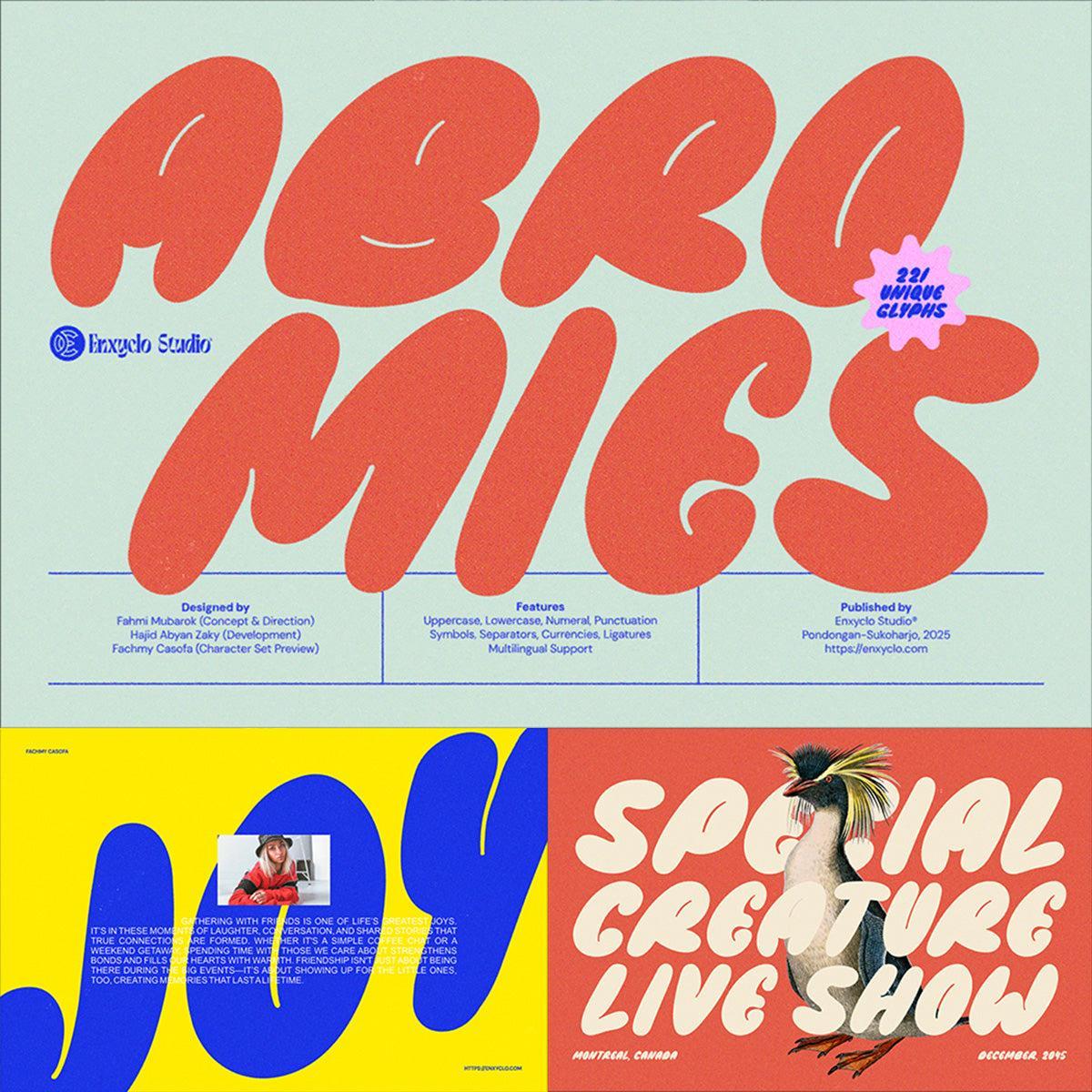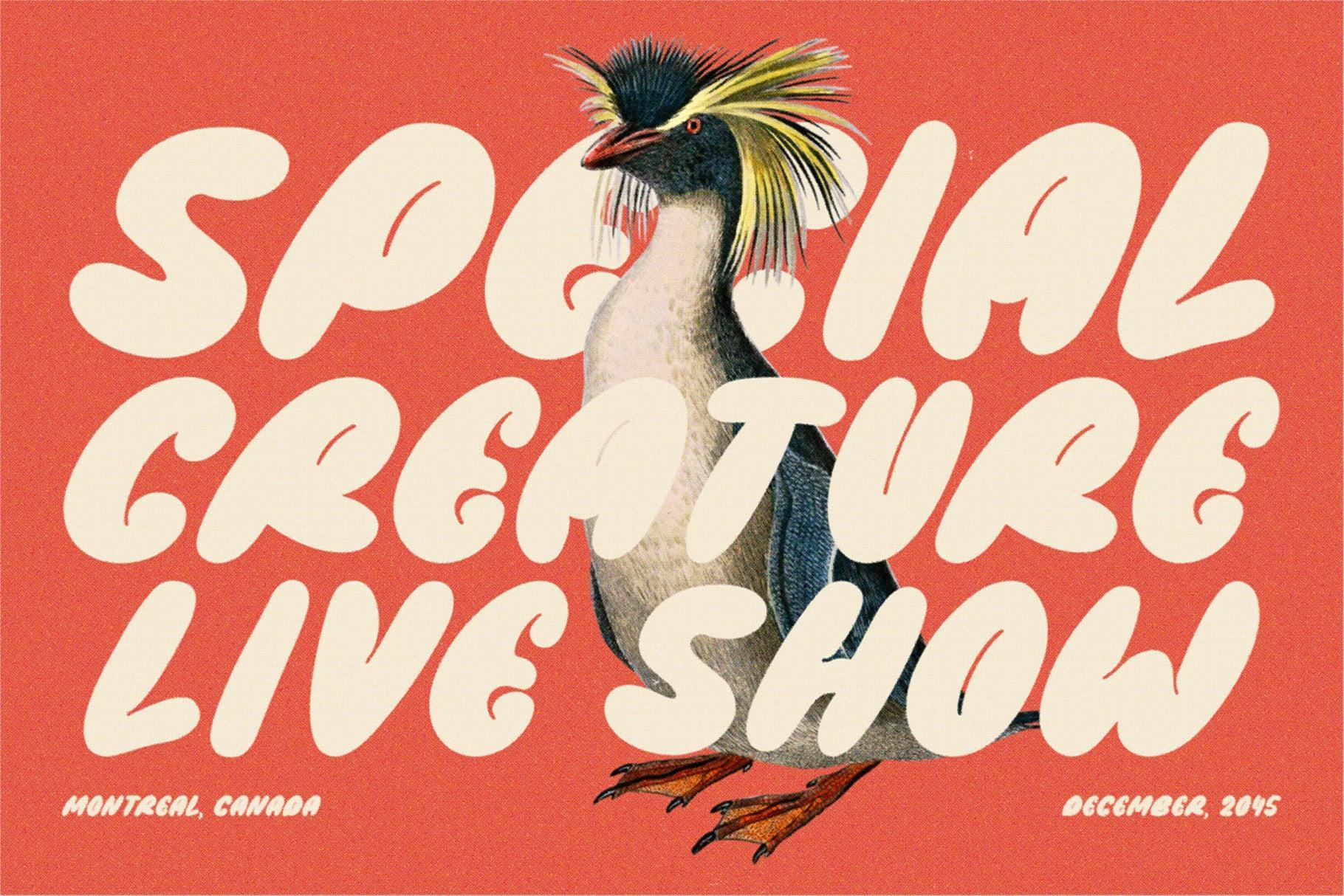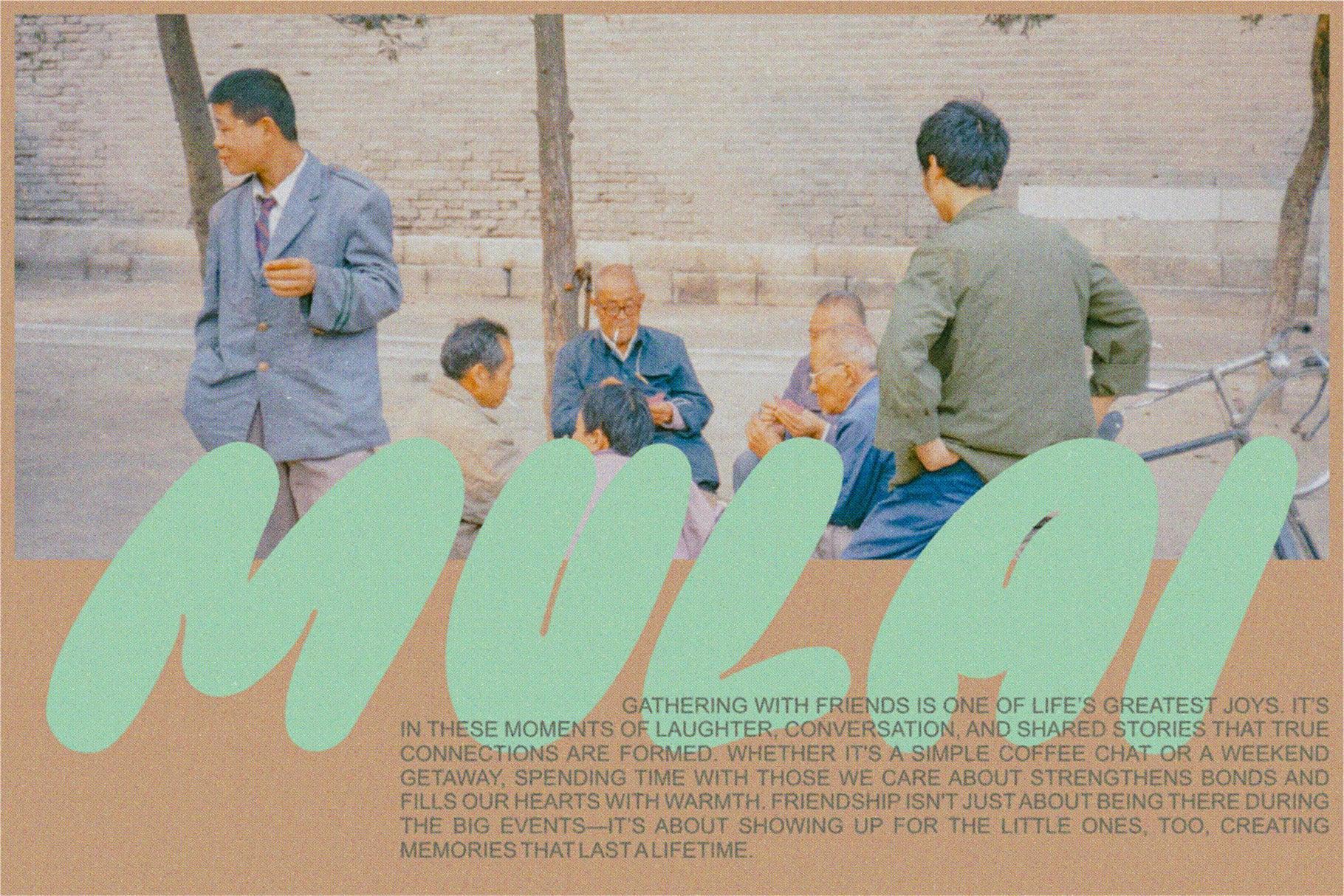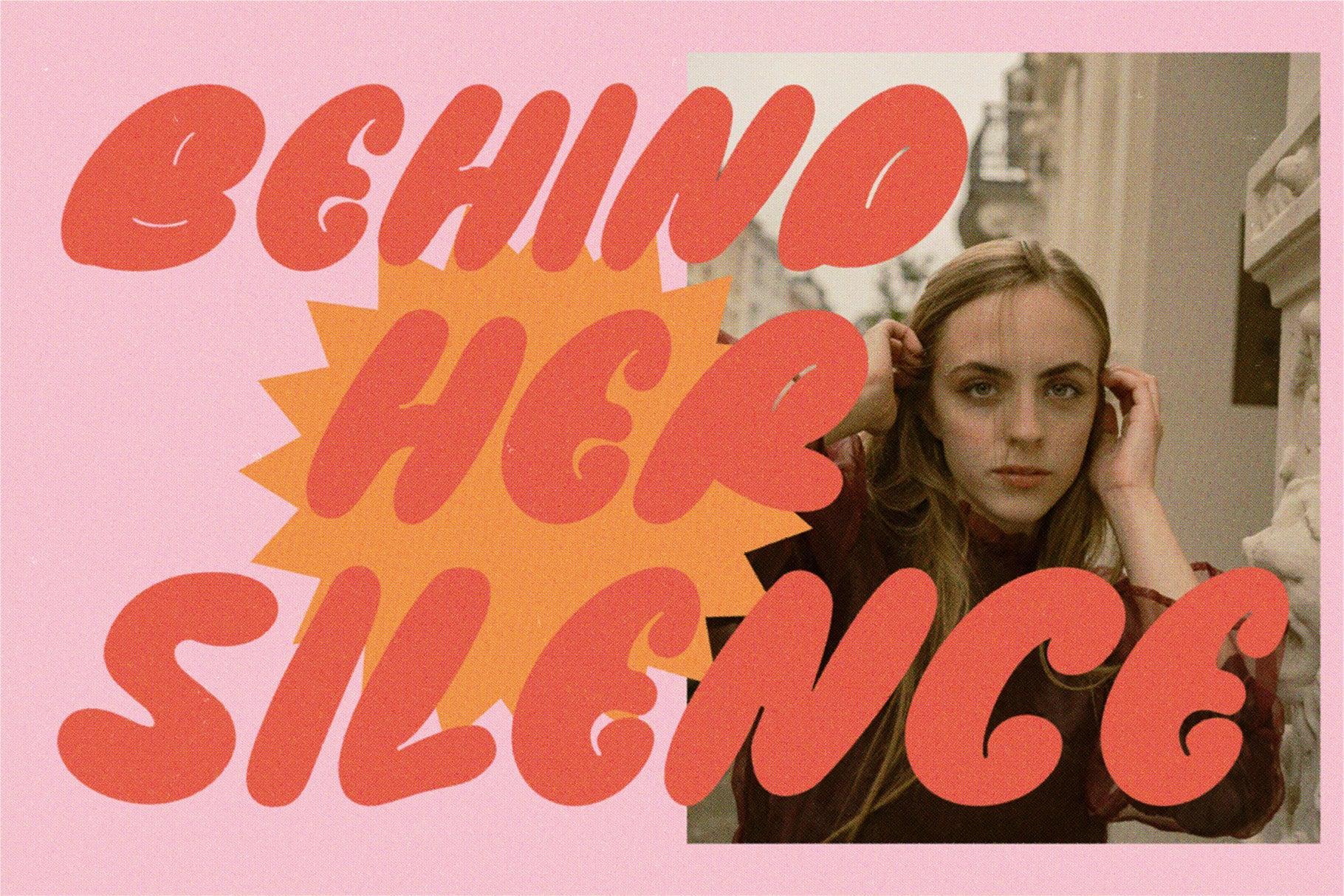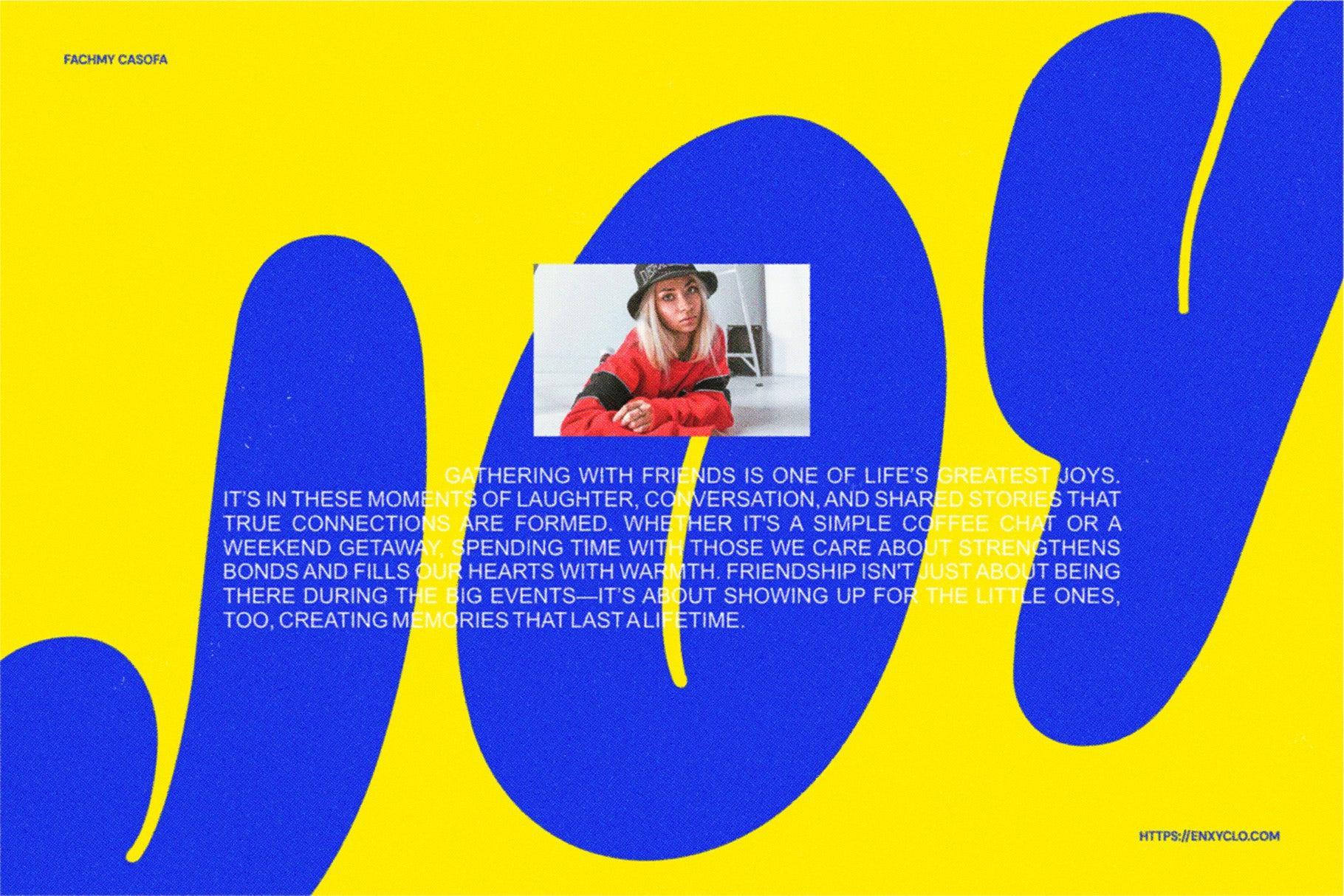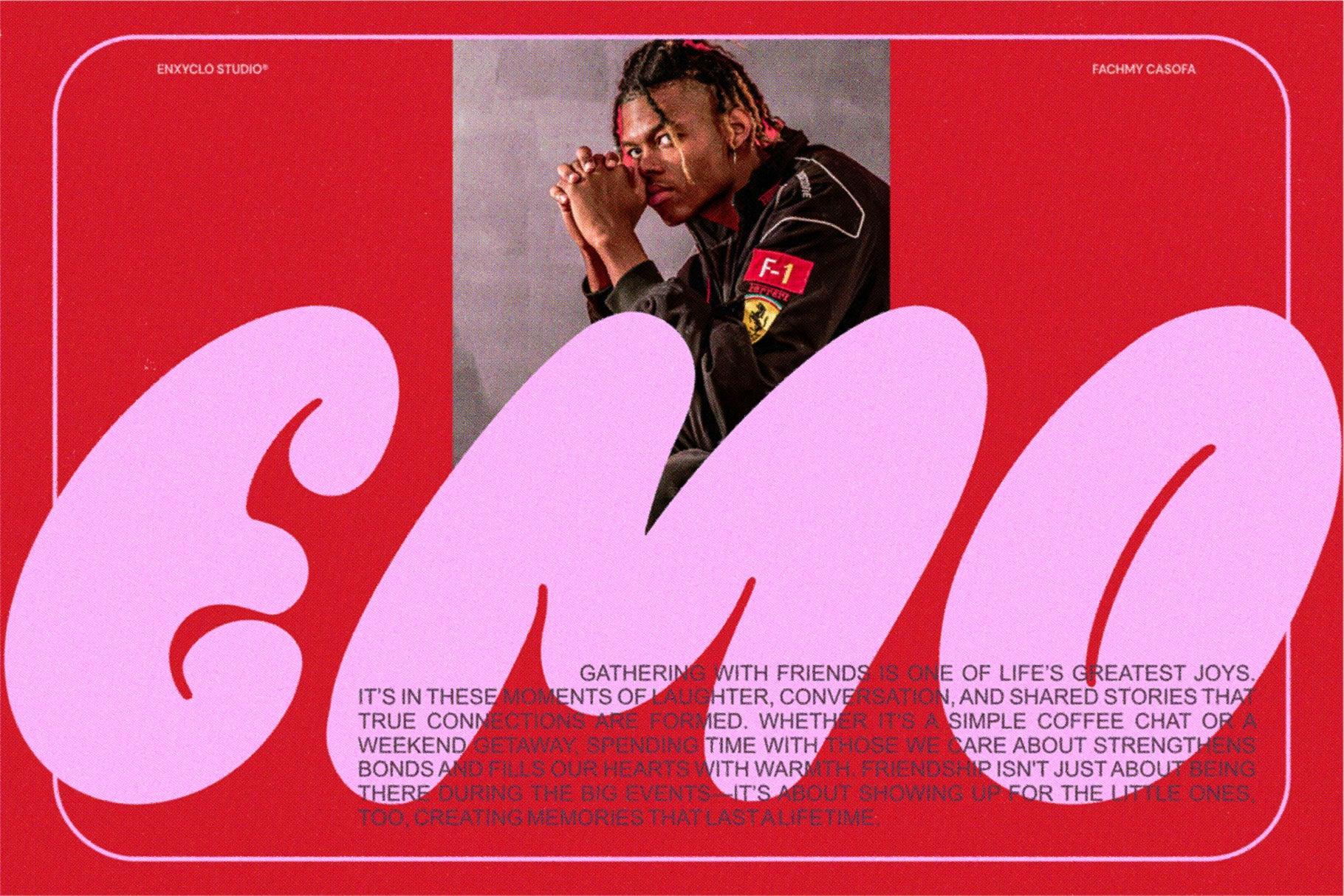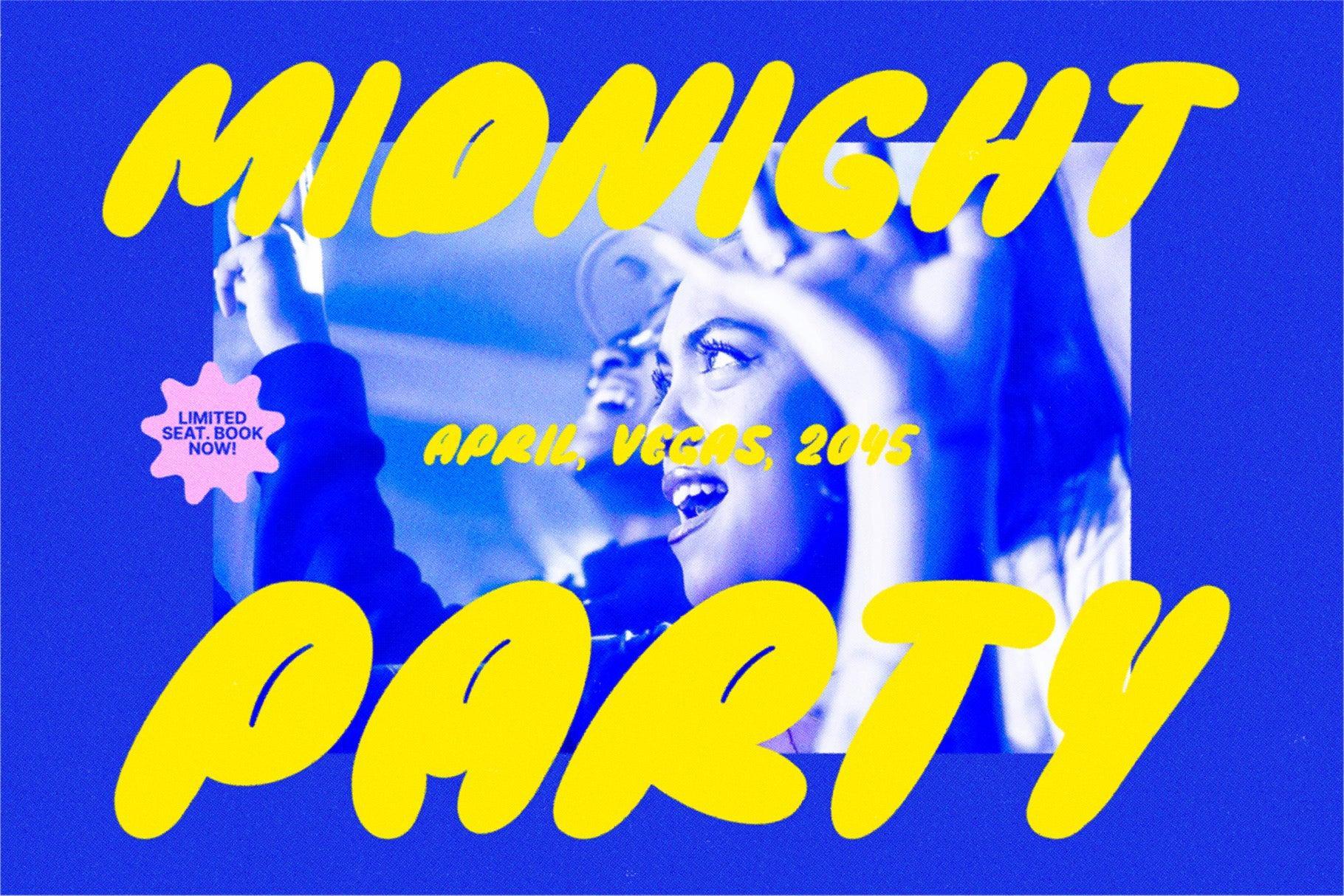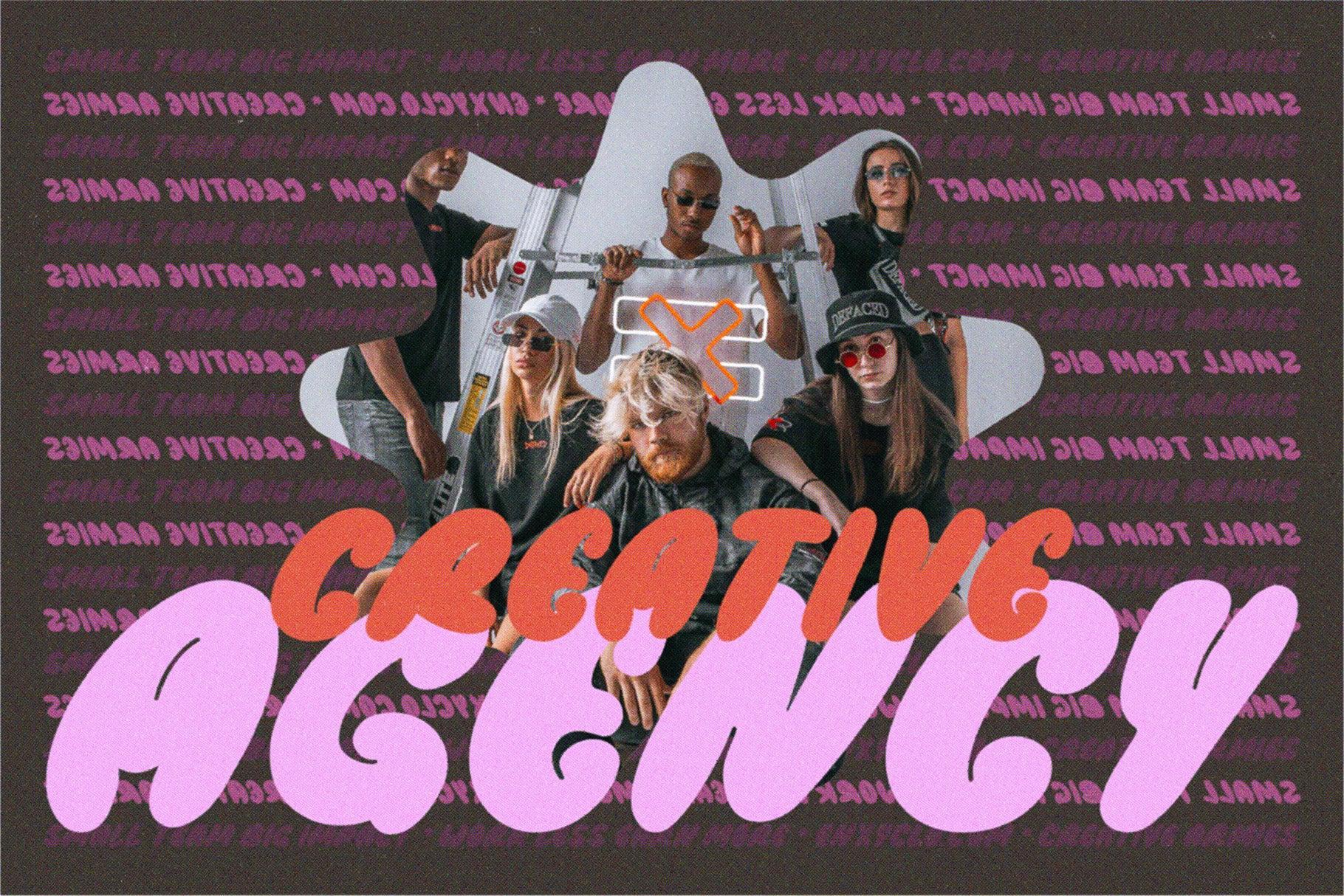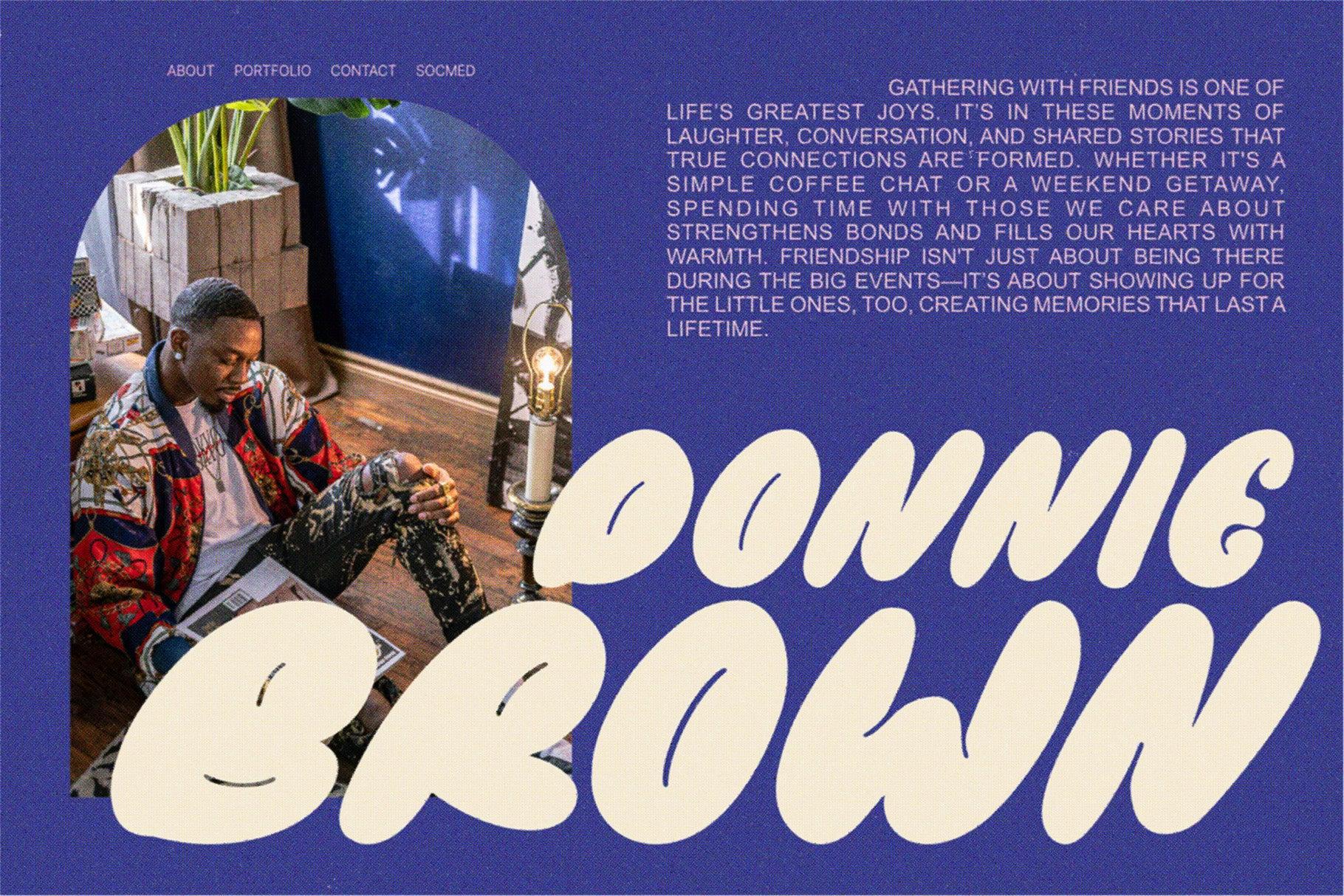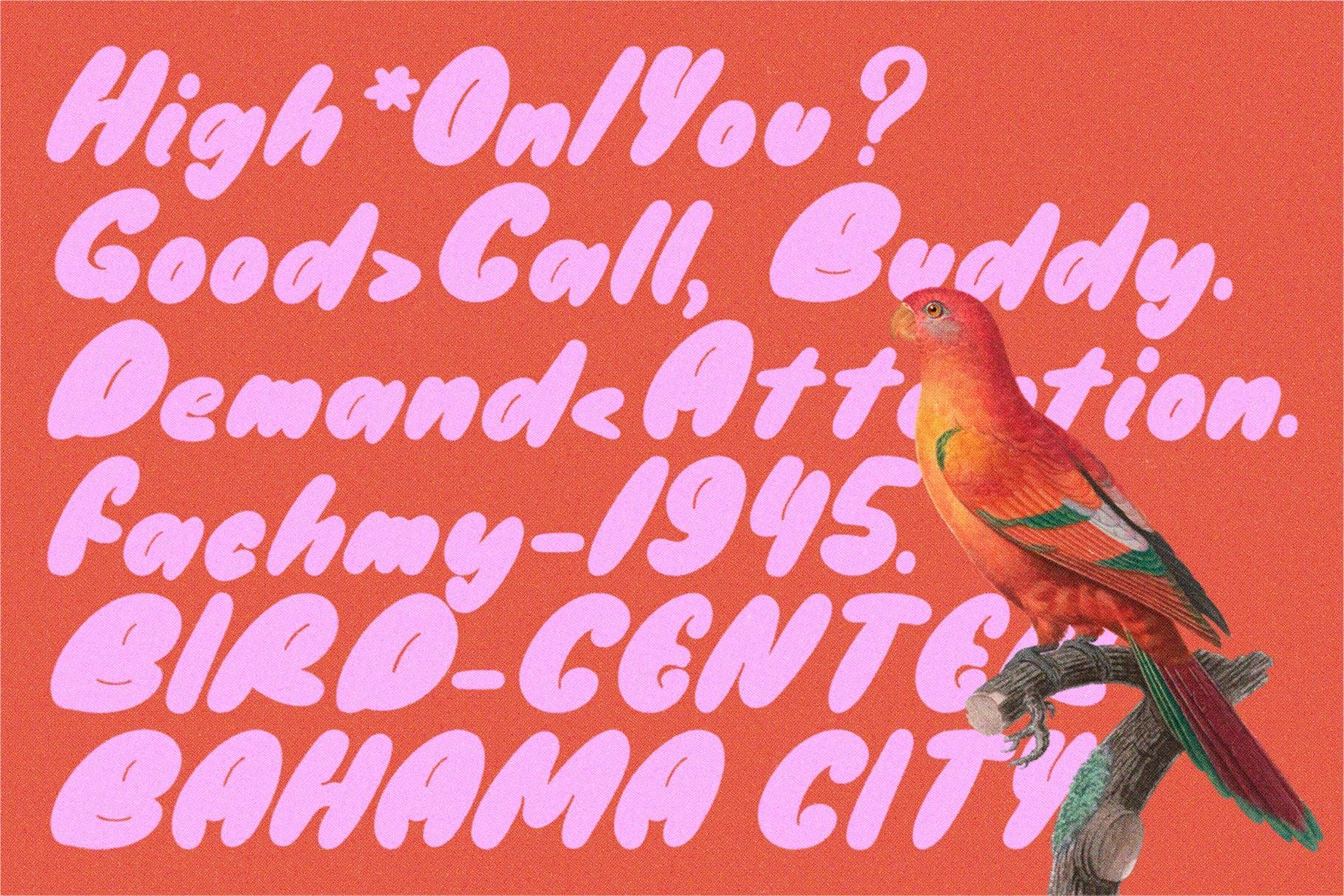
ABROMIES
Abromies is a bold bubble font featuring thick, rounded letters and soft curves, designed for attention-grabbing display purposes. It includes 221 glyphs, supports uppercase and lowercase letters, numerals, punctuation, symbols, ligatures, and multilingual characters, and is available in True Type (TTF), Open Type (OTF), and Web Open Font Formats (WOFF1 & WOFF2).
Ideal for playful and modern graphic design projects. Perfect for posters, branding, children's books, and social media graphics, ensuring a bold and cheerful visual impact that captures attention.